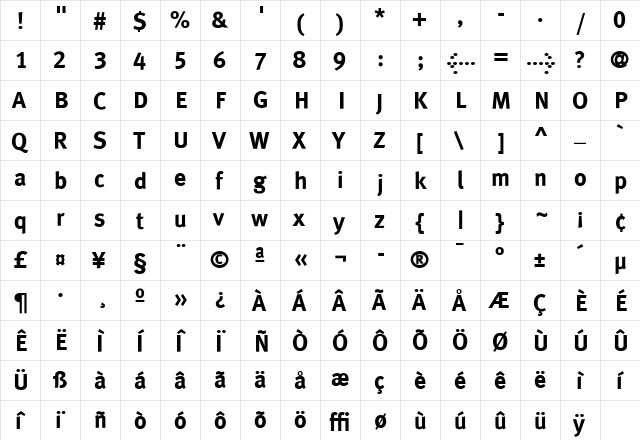
MetaPlusLining Bold
| Foundry | \ Erik Spiekermann |
Design Context for MetaPlusLining Typeface
MetaPlusLining is a composed and adaptable typeface that performs quietly and consistently across a wide range of design contexts. Its bold stroke weight gives it real presence on the page.